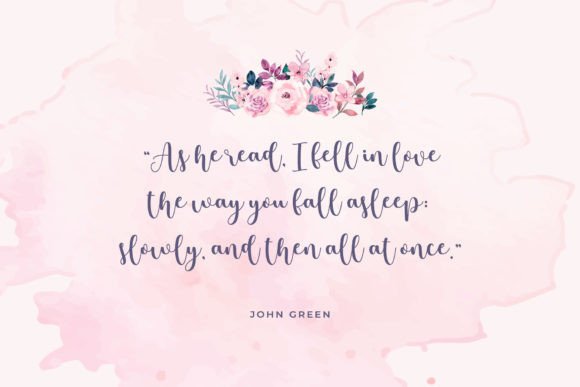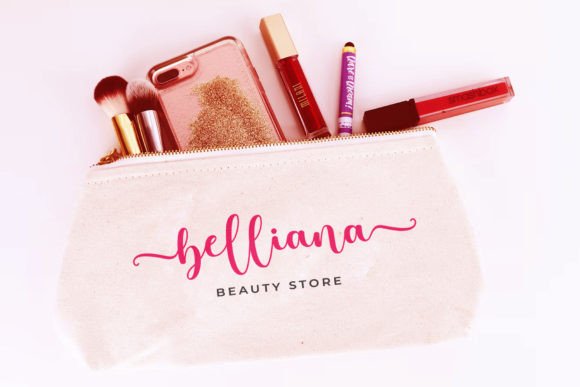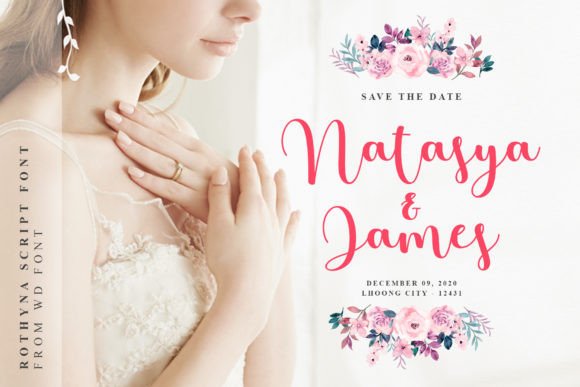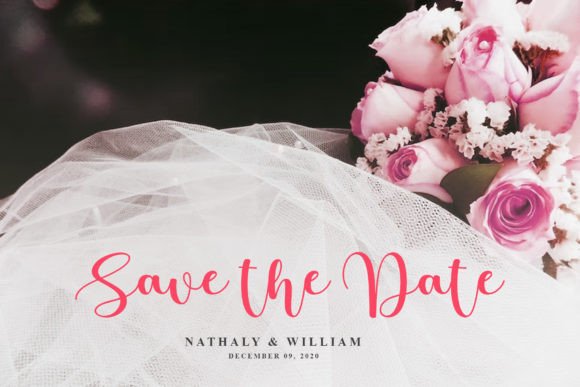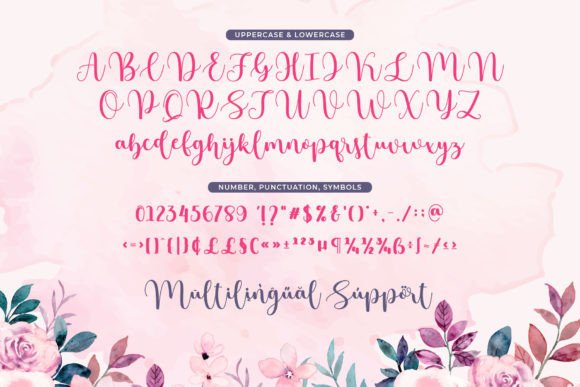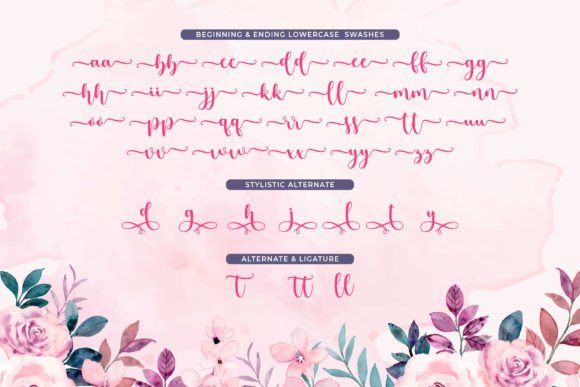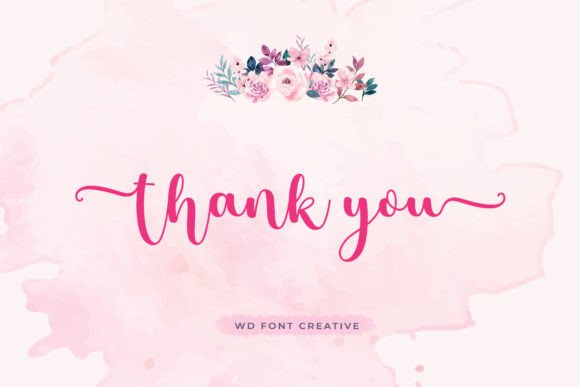
Rothyna Script Font
About Rothyna Script Font
Rothyna Script is a magical and sophisticated script font that brings a beautiful touch of elegance to every design you create. With its graceful curves and flowing style, this font is perfect for adding a sense of luxury and refinement. Whether you are designing social media graphics, invitations, or DIY projects, Rothyna Script has the power to transform any idea into a stunning work of art.
A Beautiful Font for Every Creative Project
Rothyna Script is versatile and easy to use. The smooth and stylish letterforms make it a wonderful choice for many types of projects. From Instagram posts to logo designs, this font helps you communicate your message with clarity and beauty.
When you use Rothyna Script in your work, your designs instantly feel more refined and elegant. The charming details in every letter show your audience that you care about quality and style.
Perfect for Social Media and Instagram
If you are a content creator, influencer, or small business owner, Rothyna Script will elevate your social media presence. This font is made for sharing inspiring quotes, product promotions, and engaging stories. Its graceful style catches the eye and draws people in, helping your posts stand out in busy feeds.
Use Rothyna Script to:
• Highlight headlines in Instagram Stories
• Create beautiful Pinterest pins
• Add a polished look to Facebook ads
• Style YouTube thumbnails
Ideal for Invitations and Event Materials
Rothyna Script shines in printed designs, especially for weddings, birthdays, and special celebrations. Its calligraphic feel makes every invitation look elegant and inviting. You can pair it with watercolor backgrounds, floral elements, or gold foil textures for an even more luxurious look.
It works beautifully for:
• Wedding invitations
• Save-the-date cards
• Party announcements
• Thank-you notes
• Gift tags
Easy to Access All Characters
Rothyna Script is PUA encoded, which means you can access all the swashes, alternates, and ligatures without any extra software. This makes customizing your text simple and fun. You can create unique wordmarks, logos, and headings with just a few clicks.
Why Choose Rothyna Script?
• Elegant Style: Gives any project a luxurious, refined look
• Versatile Use: Perfect for print, web, and digital designs
• Easy to Use: Fully PUA encoded for effortless customization
• Creative Freedom: Works great for branding, social media, and events
• Eye-catching: Beautiful curves and details that captivate your audience
Bring Your Vision to Life
Rothyna Script is more than just a font—it’s an artistic tool that helps you express your ideas with style and confidence. Whether you are a designer, crafter, or business owner, you will love how this script font makes your work feel special and unforgettable.